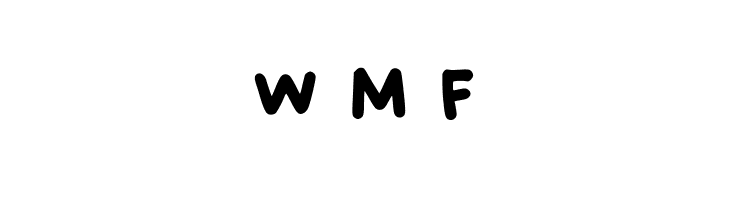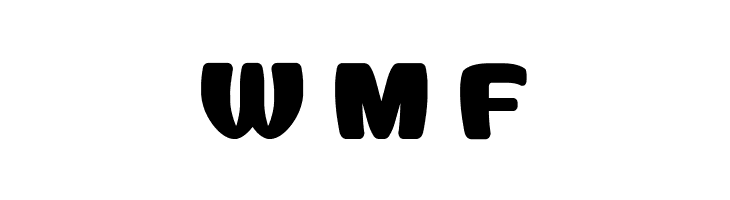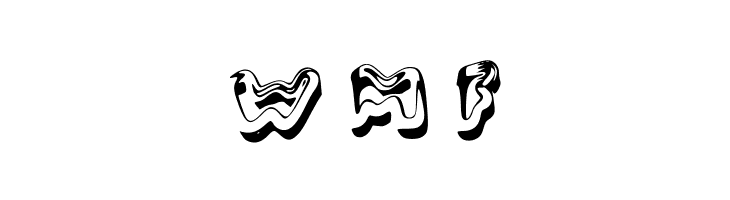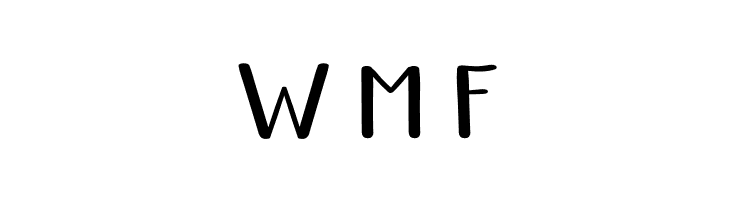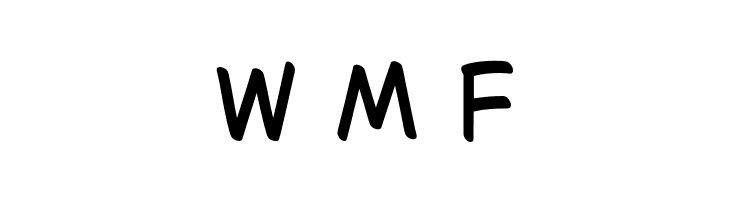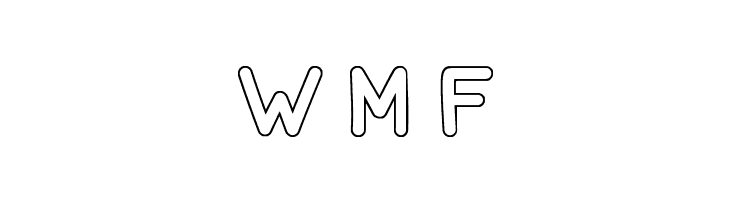
A playful, bubble-themed decorative font with a bold and whimsical style.
A playful, bubble-like font with bold, rounded characters and a 3D shadow effect.
A bold, sans-serif font with a strong, modern presence.
A playful, bubble-like font with hand-drawn, rounded letterforms.
A bold, playful cursive font with rounded, connected letters and a lively bounce.
A playful, bold typeface with rounded, bubbly characters.
A playful, bubbly font with rounded characters and a whimsical style.
A bold, bubble-like font with a playful, retro style.
A playful, bubble-like font with rounded, bold characters.
Bold, bubbly font with snow-topped letters for festive themes.
A playful, bold font with rounded, comic-style letterforms and a three-dimensional effect.
A bold, dynamic font with a playful, three-dimensional bubble-like style.
A bold, three-dimensional font with a playful and dynamic appearance.
A playful, bubbly font with a hand-drawn, irregular outline style.
A playful, 3D bubble font with a cartoonish and bold style.
A bold, playful font with a bubbly, cartoon-like appearance.
A playful, bold font with a unique shadow effect and rounded, bubbly characters.
A bold, bubbly font with a glossy, three-dimensional appearance.
A bold, playful font with rounded, bubble-like characters.
A playful, outlined bubble font with a fun and informal style.
A playful, hand-drawn font with a bubbly, outlined style.
A playful, bubbly font with a hand-drawn feel, perfect for creative projects.
A playful and whimsical font with bold, rounded forms and decorative elements.
A playful, pixelated bubble font with a retro digital aesthetic.
A playful, pixelated font with bead-like characters, perfect for retro or tech-themed designs.
A pixelated, bubble-like font with rounded dots creating a playful digital aesthetic.
A playful, pixelated font with a bubble-like texture and retro digital aesthetic.
A playful, bubbly font with a hand-drawn, whimsical style.
A playful, rounded font with a hand-drawn, bubbly style.
A playful, bold, and bubbly hand-drawn font with rounded strokes and a whimsical style.
Bold, bubbly display font with a splattered, playful texture.
A bold, rounded font with a playful and bubbly appearance.
A playful, bubbly font with rounded, consistent characters.